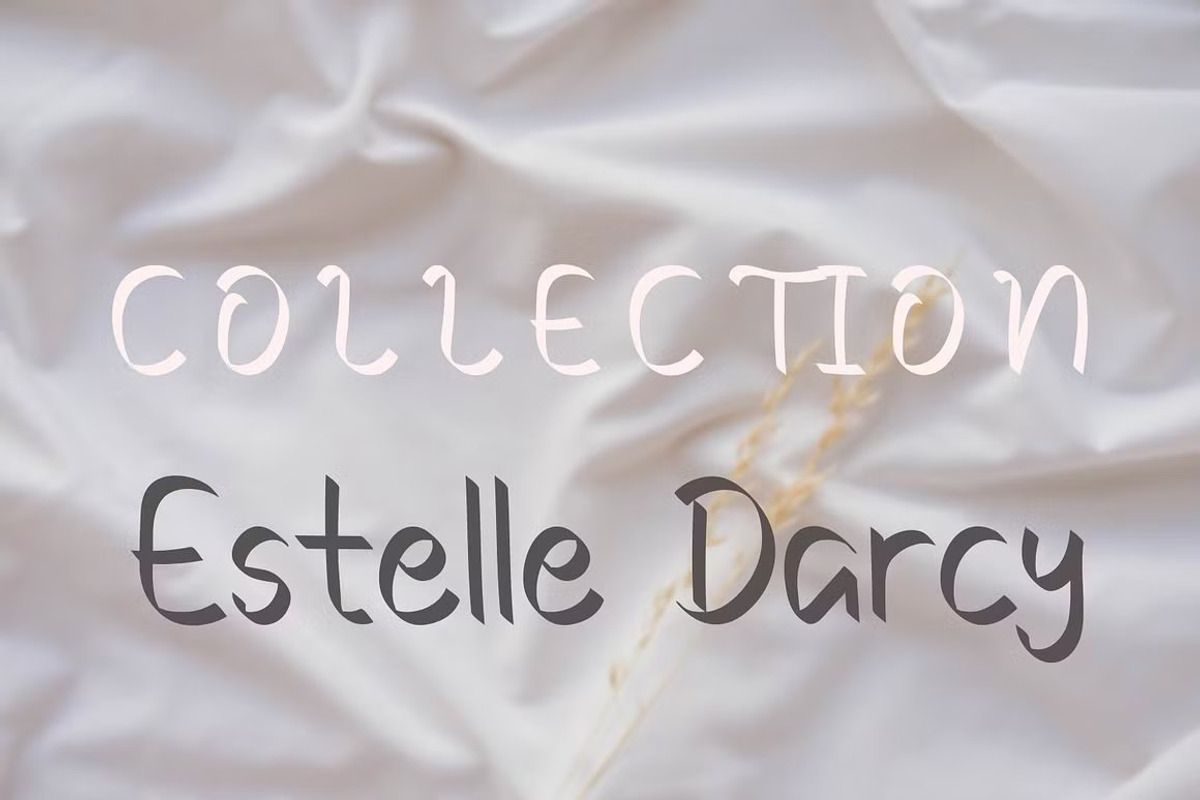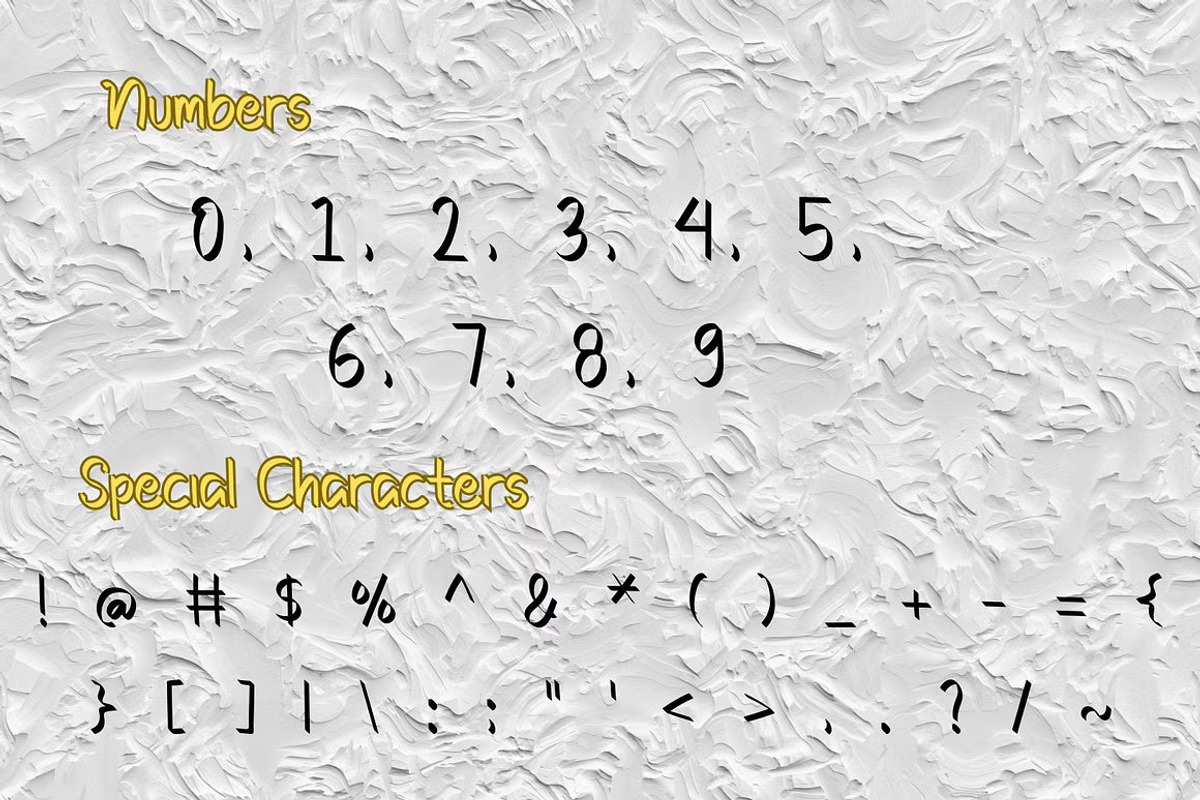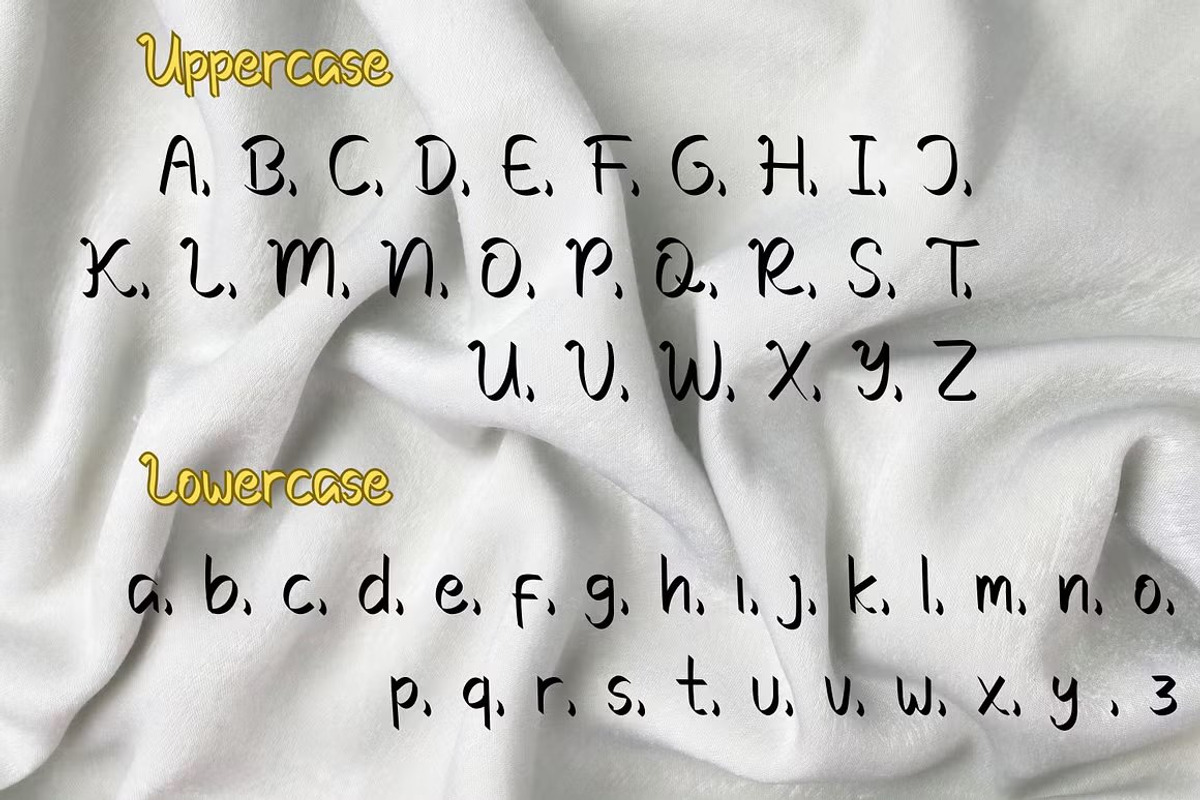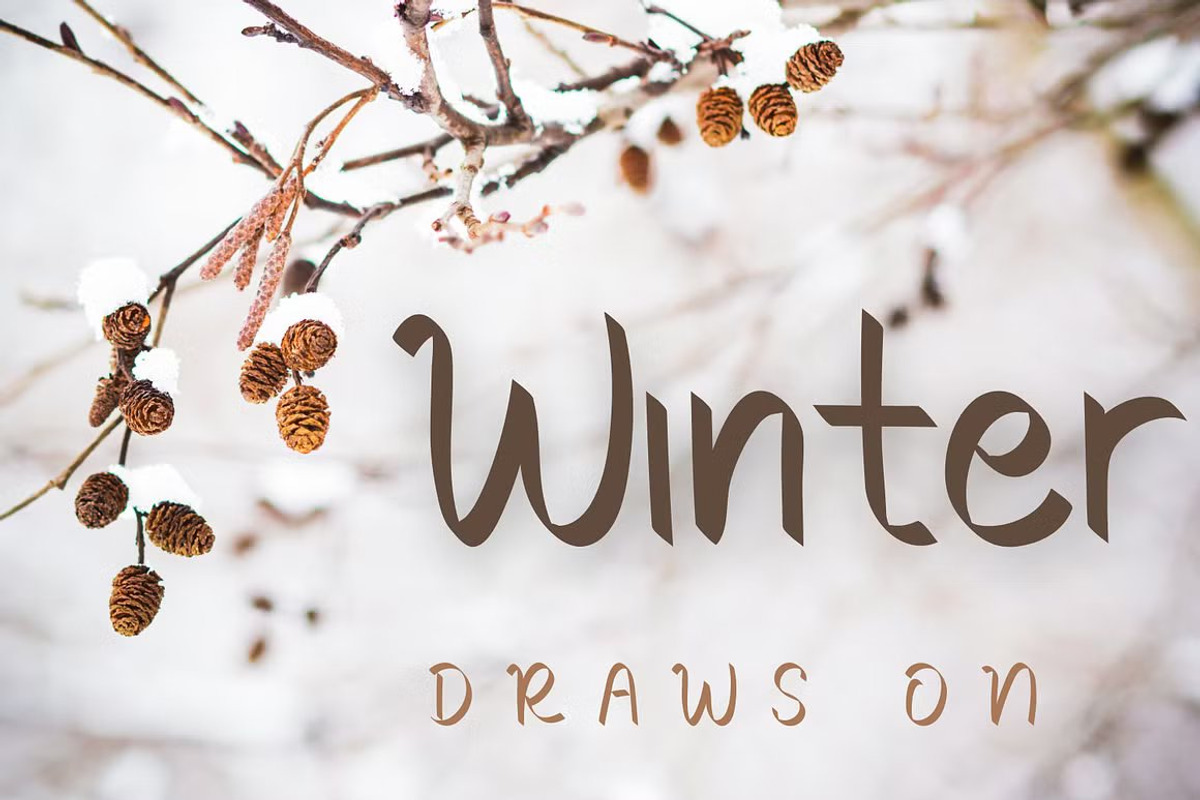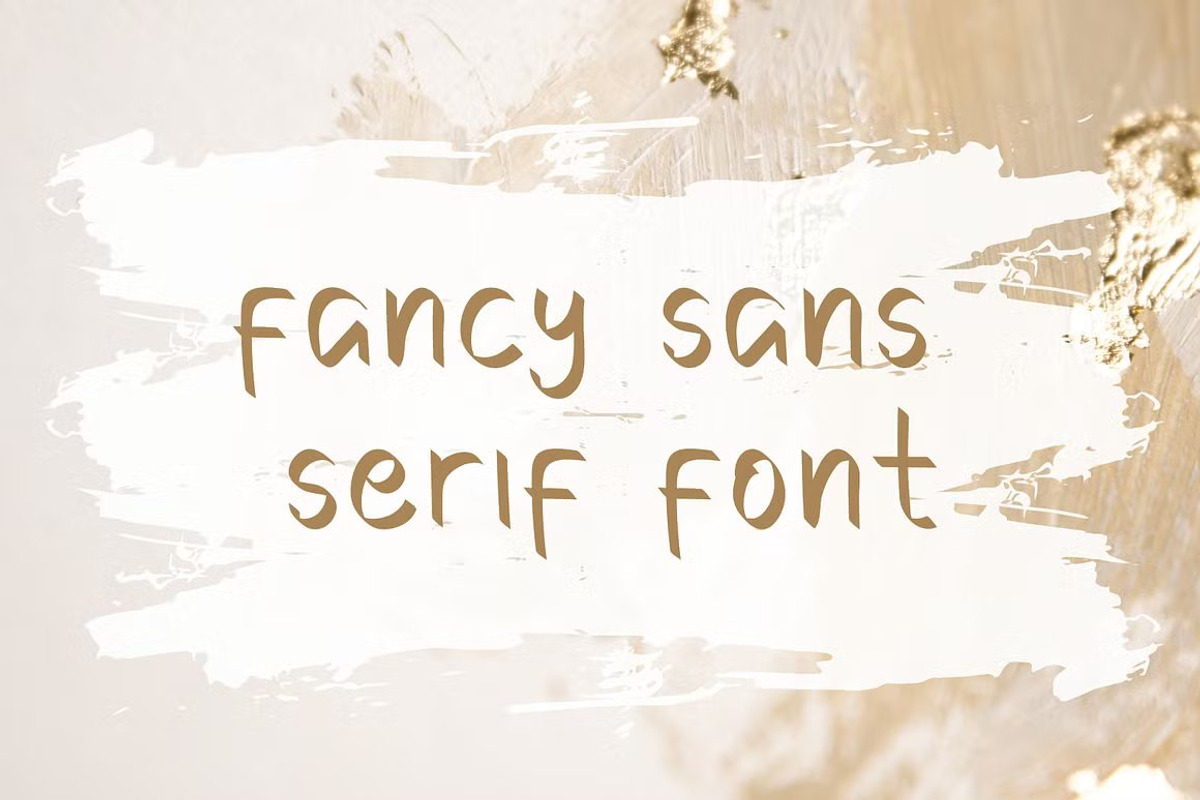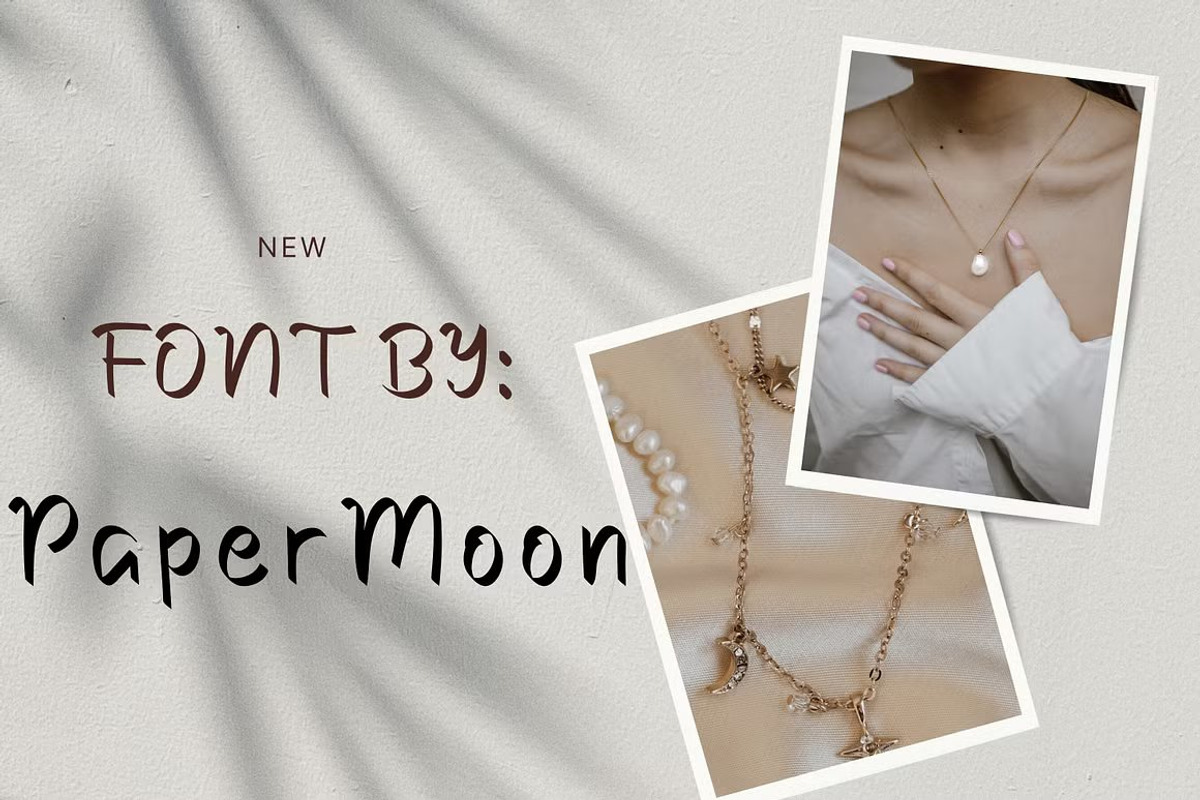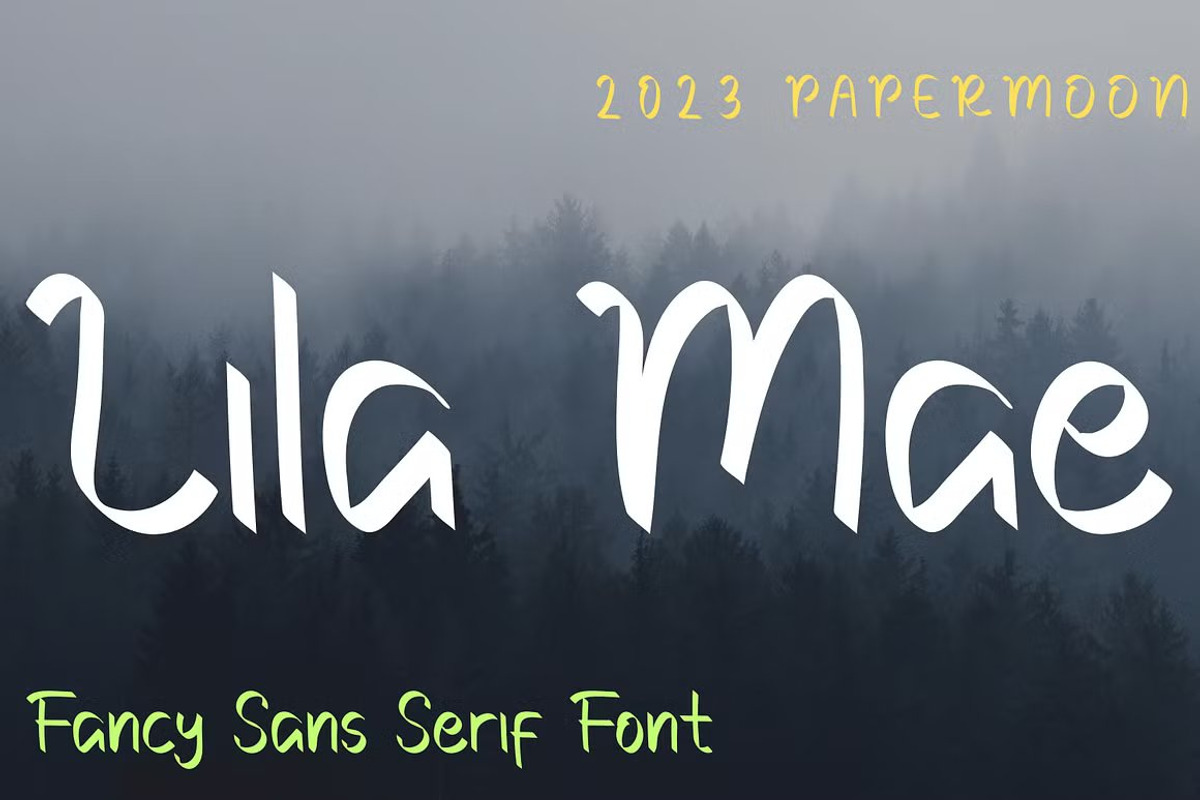
Lila Mae Fancy Sans Serif Font
Introducing Lila Mae Font: A Sophisticated Sans Serif with a Handwritten Twist
Discover Lila Mae Font, a beautifully crafted sans serif typeface that blends sophistication with a charming handwritten touch. Offering a variety of styles, from fun and casual to stylish and classic, Lila Mae is perfect for an array of creative projects, including branding, stationery, business cards, signage, flyers, brochures, and more. Its meticulously designed character set ensures well-spaced and perfectly kerned letters for a polished and professional appearance.
Lila Mae Font is a versatile choice, suitable for numerous industries such as schools, weddings, events, non-profit foundations, florists, gardening enthusiasts, makeup artists, travelers, hotels, musicians, and many others, making it an adaptable solution for diverse design needs.